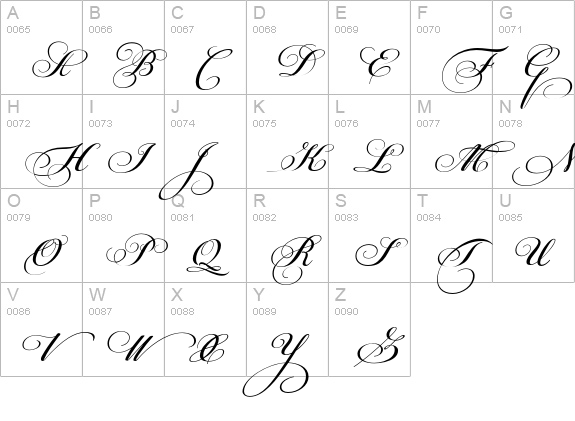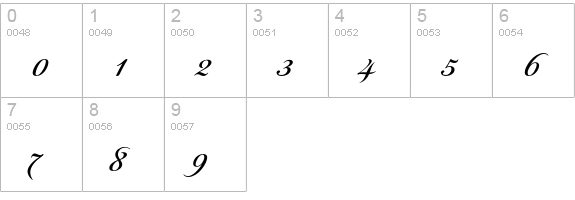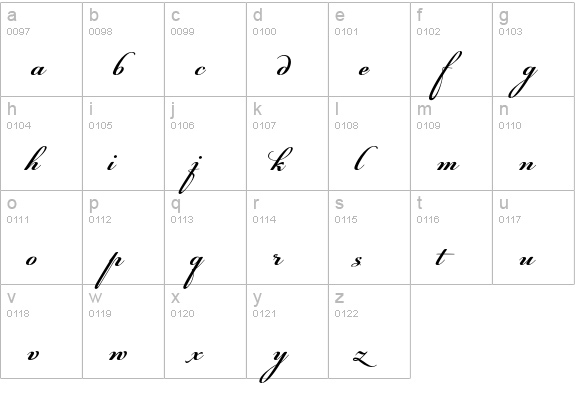
PFChampionScriptPro-Bold Font Details
PFChampionScriptPro-Bold is a strong, high-contrast variant in the PFChampionScriptPro typeface family \xE2\x80\x94 well suited to headlines, attention-grabbing titles, and strong calls-to-action.
PFChampionScriptPro-Bold font is a bold and impactful typeface that exudes confidence and elegance. Its strong, clean lines and stylish curves make it perfect for creating eye-catching designs that command attention. This font is ideal for projects that require a touch of sophistication and modernity. What makes PFChampionScriptPro-Bold font even more appealing is that it is available for free download at FontsMarket.com. This means that you can easily access and use this premium font without any cost, making it a valuable addition to your design toolkit. Whether you're working on branding, advertising, invitations, or any other creative project, PFChampionScriptPro-Bold font is sure to elevate your work to the next level with its bold and dynamic presence.